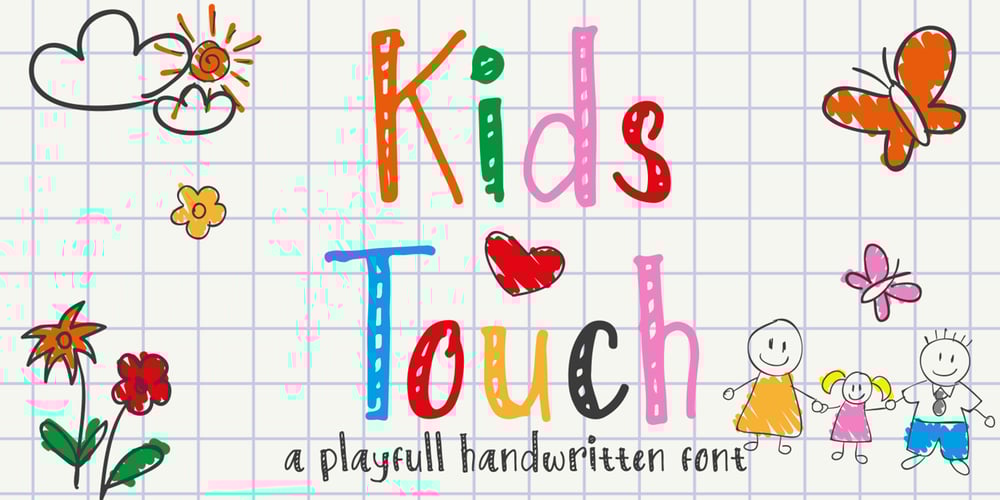
Kids Touch Font Family was designed by Sipanji and published by Sipanji21. Kids Touch contains 1 styles and family package options. Hello, this is kids touch typeface, it is original and natural kids handwritten font. This article is good for a variety of designs, such as: packaging, advertising, crafting, merchandise, banner posters, titles, book covers, tote bags, and other designs. make your design more natural with Kids Touch.